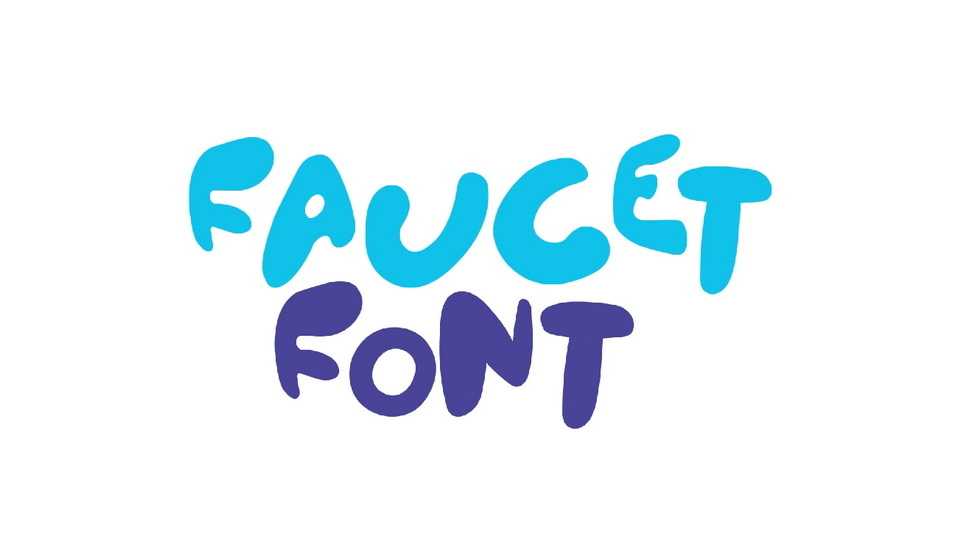
Download Faucet font, a hand lettered typeface inspired by a retro visage of a slow-dripping tap. Its fun and friendly appearance is suitable for many design tasks, logos, posters, book covers, menus, labels, packaging, etc.